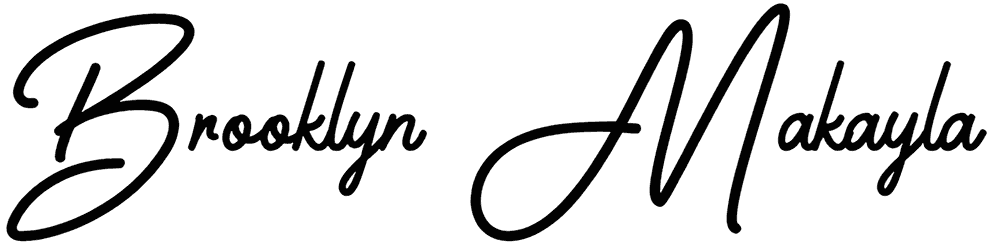
Brooklyn Makayla Font
The Brooklyn Makayla font is a modern script font that can be used to deliver messages in style and elegance even though it does not support numbers. There is a very close relationship between calligraphy and cursive fonts, and this font fits well in both categories.
It is flawless for you who need a handwritten font, especially logotype, apparel, invitation, branding, etc. Creative professionals looking for a typeface to stand out will find this font excellent.